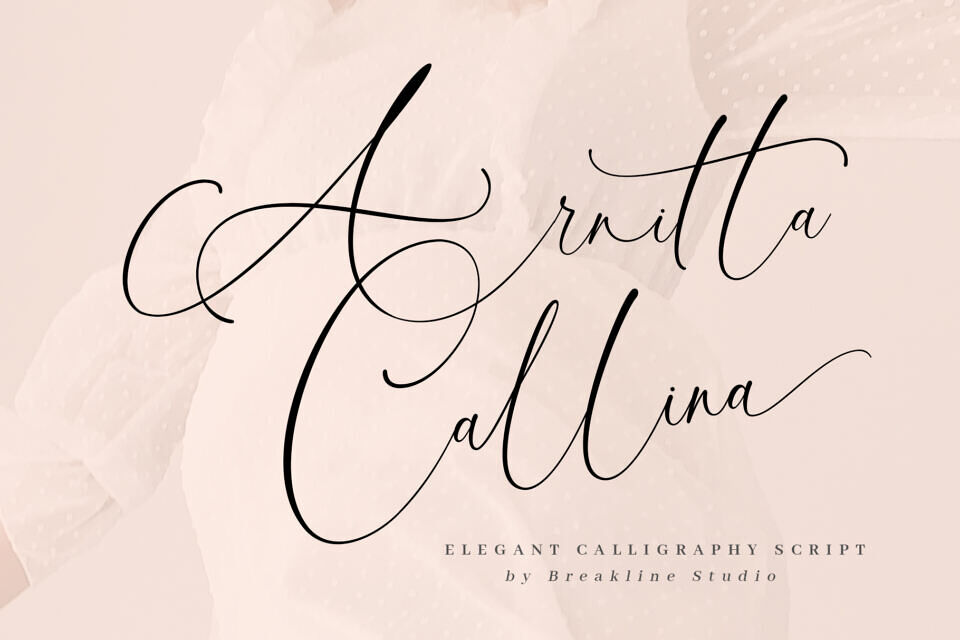
Jul 2, 2025Script & HandwrittenArnitta Callina Font Arnitta Callina is a new fresh & elegant script with a handmade calligraphy style. The impression is classic, yet modern, making Arnitta Callina a great choice for all your creativity. Font DetailsDesigned by: MercurialWebsiteLicense: Free for commercial use Download Arnitta Callina FontFile size: 75.69 KBCreated: July 2, 2025Updated: July 2, 2025 Download Explore similar fonts Renitta Font Floravine Romantic Font Royal Fortune Font Duo Maulieda Remighe Font Juliette Rayleigh Font Butterfly Friends Font # Beautiful# Branding# Calligraphy# Classic# Cursive# Elegant# Fancy# Fashion# Feminine# Hand-drawn# Handwriting# Headline# Invitations# Modern# Pretty# Romantic# Thin# Valentine# Wedding